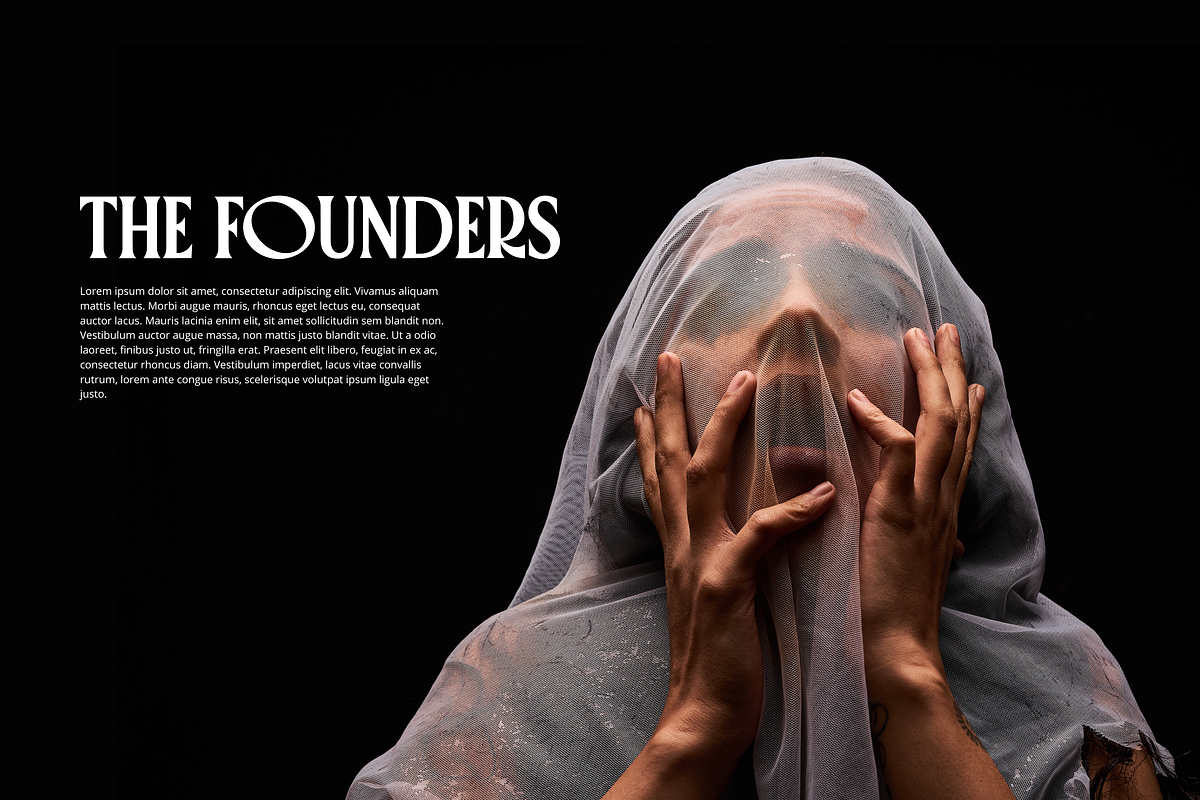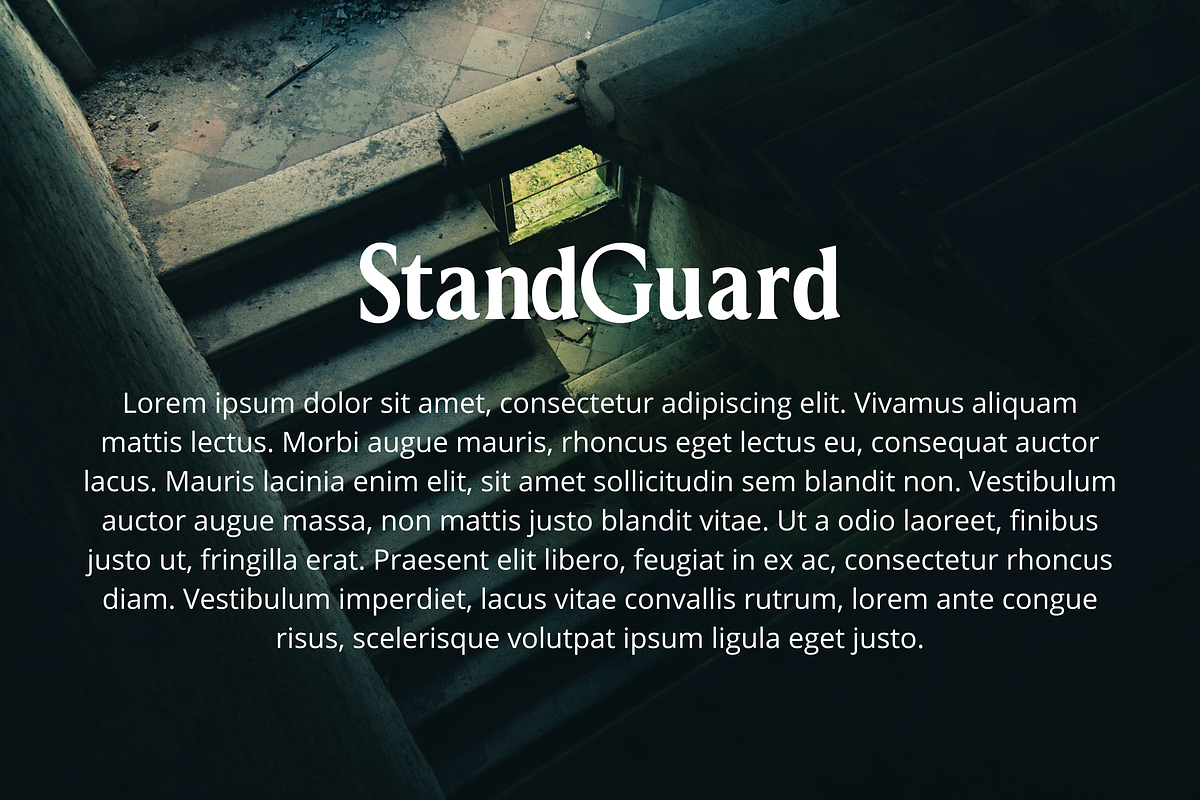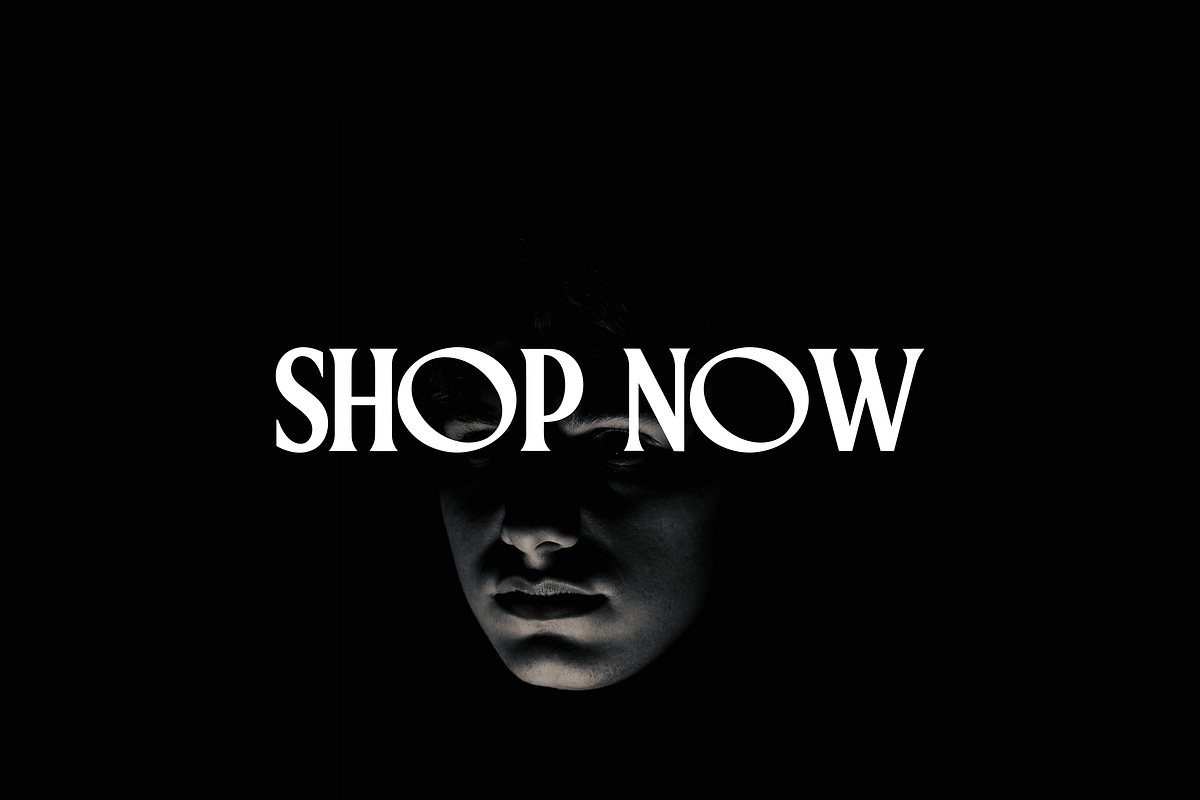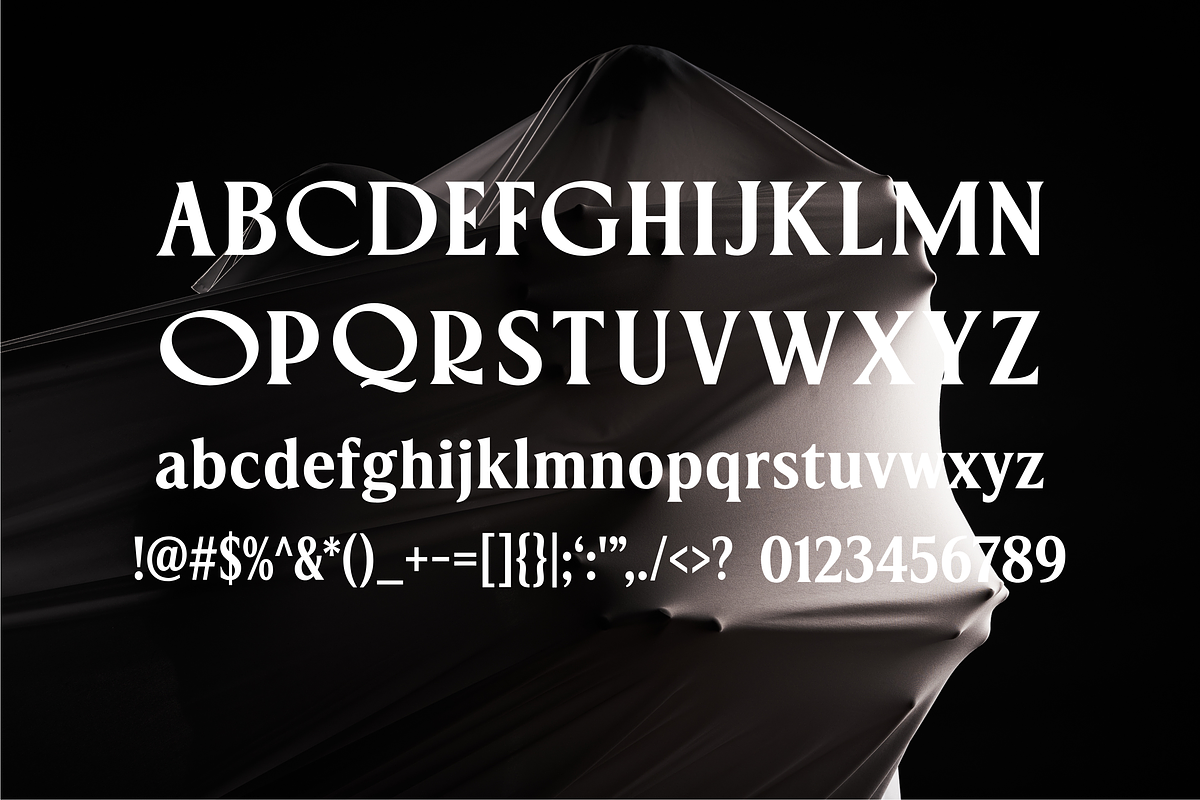
Koolims Serif Display
KOOLIMS is a modern display serif font that seamlessly blends classic elegance with a bold, experimental twist. The most striking feature of this typeface lies in its sharp, high-contrast details and unique interlocking circular modifications (as beautifully demonstrated in the overlapping 'O' characters).
Specially crafted for high-impact visuals, KOOLIMS is the perfect choice for magazine headlines, luxury branding, editorial designs, movie posters, high-end packaging, and any creative project that demands a dramatic, mysterious, and sophisticated impression.
Full Uppercase & Lowercase Character Set
Numbers & Punctuations
Stylistic Alternates & Ligatures
Multi-language Support (Standard Western European accent characters)